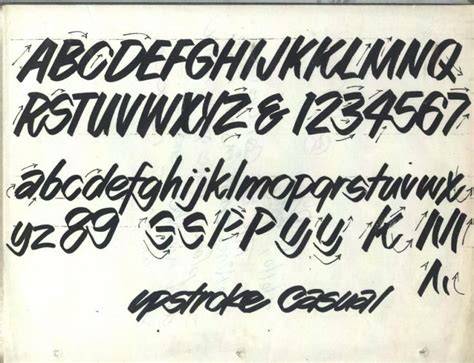
Pinstriping Fonts - A Must-Have For Every Designer In 2023
What is Pinstriping?
Pinstriping, or pinstriping, is a form of decoration that has been around for centuries. It is a thin line of paint that is applied to an object, usually a vehicle, in a pattern to create a decorative effect. It can also be applied to other objects, like furniture and clothing. It is a form of art and a way to customize something. Pinstriping is generally done in a single color, although it can be done with multiple colors. It is a popular form of decoration in the car and motorcycle world, and it is also used in other industries, like fashion and design.
Why Use Pinstriping Fonts?
Pinstriping fonts are a great way to add a unique and stylish look to any design project. They are used to create intricate and detailed designs that can be used to decorate cars, boats, motorcycles, and other objects. They are also used in fashion, architecture, and other industries. Pinstriping fonts are available in a variety of styles and sizes, so you can easily find one that suits your project.
What Are the Benefits of Using Pinstriping Fonts?
Pinstriping fonts are easy to use and can be applied to any surface. They are also highly customizable and can be used to create a variety of designs. These fonts are also great for creating logos, branding, and other marketing materials. They are also versatile, as they can be used on a variety of materials, including wood and metal. Moreover, the fonts are easily visible, which means that they can be used to create designs that are eye-catching and attractive.
Pinstriping fonts are a great way to add a unique and stylish look to any design project. They are easy to use and highly customizable, making them perfect for creating logos, branding, and other marketing materials. They are also versatile, as they can be used on a variety of materials. In 2023, there are many places to find pinstriping fonts, including online websites, retail stores, and specialized stores.